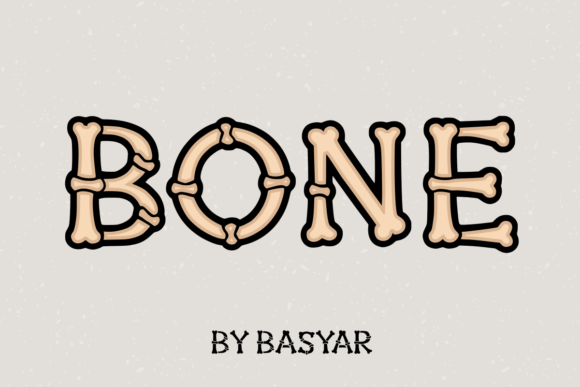
The Bone-Chilling Truth: Why Bone Font is a Game-Changer for Designers
I still remember the time I was working on a Halloween-themed project for a client, and I just couldn’t find the right font to capture the spooky essence. The client wanted something that would make their audience shiver with delight, but not scare them off. I spent hours scouring the internet, trying out font after font, until I stumbled upon Bone Font. It was love at first sight! ✨ The letters and numbers crafted to resemble realistic bone structures were exactly what I needed to bring the project to life.
What I Love About Bone Font
• 👻 Spooky and fun: Bone Font is perfect for Halloween themes, horror graphics, or any project that needs a playful but eerie touch.
• 💀 Unique and eye-catching: The skeletal style adds personality to posters, invitations, t-shirts, and digital designs.
• 💻 Versatile: Bone Font can be used for a wide range of projects, from haunted houses to scary movie nights and gothic aesthetics.
• ✅ Easy to read: Despite its unusual design, Bone Font is surprisingly legible, even in smaller sizes.
While Bone Font is an amazing addition to any design project, it’s not without its quirks. 🤔 For example:
• ⚠️ Limited use cases: Bone Font might not be the best choice for formal or professional projects, as it can come across as too playful or attention-seeking.
• ⚠️ Glyph limitations: While Bone Font has a range of glyphs and stylistic alternates, it might not have every symbol or character you need.
The Story Behind Bone Font
Bone Font was created by a talented designer who wanted to capture the essence of Halloween and the supernatural. Inspired by skeletal structures and spooky atmospheres, the designer crafted a font that’s both eerie and playful. 💀 While the designer’s identity remains a mystery, their creation has become a favorite among designers and crafters alike.